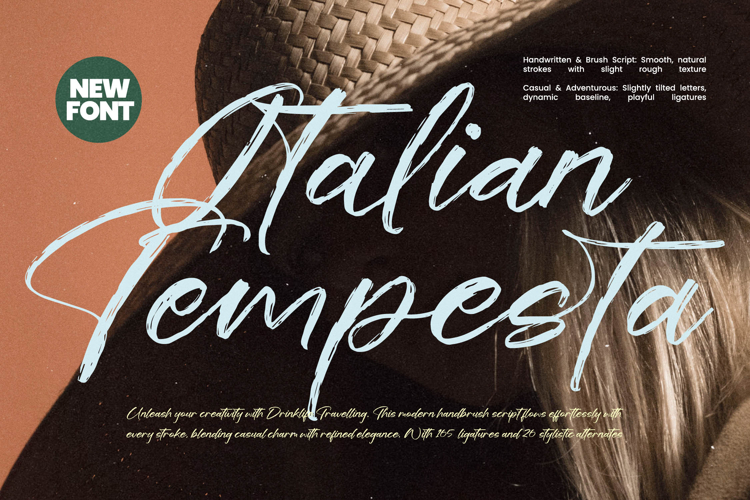
Italian Tempesta - Handbrush Script Font
Unleash high-impact visual energy with Italian Tempesta - Handbrush Script Font, a typeface defined by its spirited authenticity. This brush script captures the essence of dynamic, expressive typography, featuring smooth, flowing strokes infused with a perfectly imperfect rough texture. Its slightly tilted, dynamic baseline ensures that headlines and logos burst with immediate, adventurous personality, effortlessly blending casual flair with raw, artistic movement.